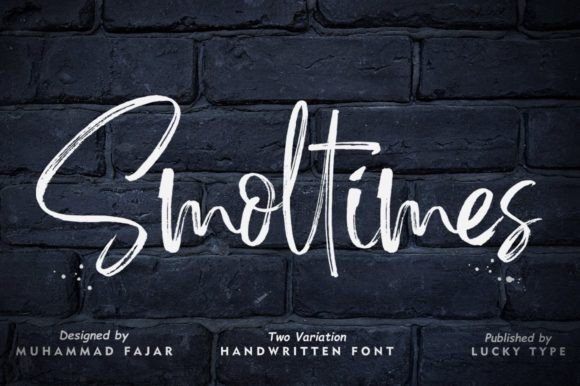
Welcome to the world of Smoltimes Font, where handwritten elegance meets digital brilliance. Immerse yourself in a universe of exquisite brushstrokes, where every letter dances with vibrancy and grace. Indulge in the artistry of Smoltimes, a font family born from the fusion of creativity and innovation.
Our team of experts meticulously crafted Smoltimes script font, ensuring each character exudes personality and charm. With its irregular baselines and hand-drawn essence, Smoltimes captures the essence of authenticity and uniqueness. This remarkable font will elevate your designs, lending them an air of sophistication and timeless beauty.
Unleash your creativity with Smoltimes, a font that knows no bounds. Whether you're designing clothing, crafting invitations, or creating book titles, Smoltimes effortlessly adapts to your vision. Its versatility extends to stationery designs, quotes, branding, logos, greeting cards, t-shirts, packaging designs, and posters.
With Smoltimes by your side, you'll discover a world of possibilities. Its free-spirited nature and expressive style will captivate your audience, leaving a lasting impression that resonates with individuality and artistry. Experience the allure of Smoltimes today and elevate your designs to new heights of visual appeal.